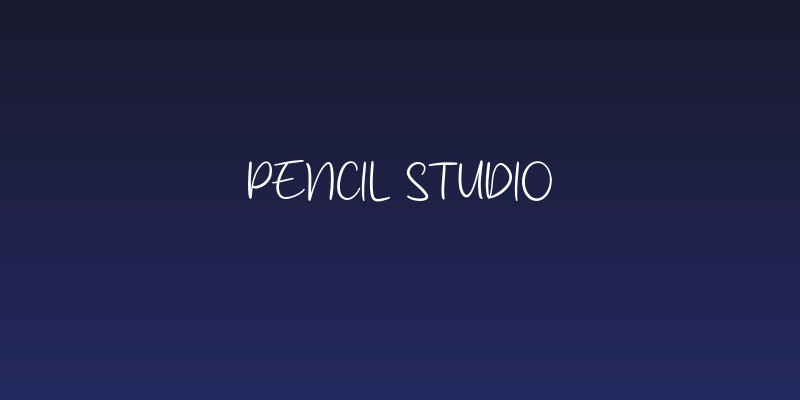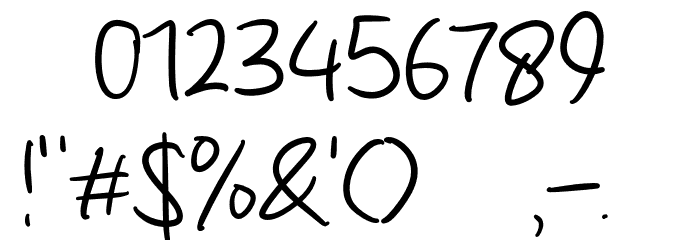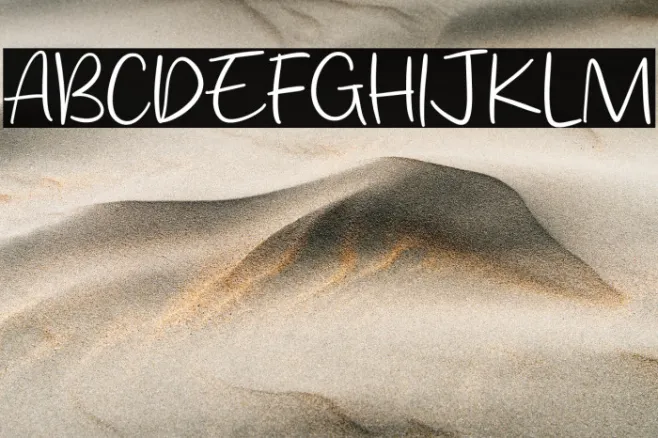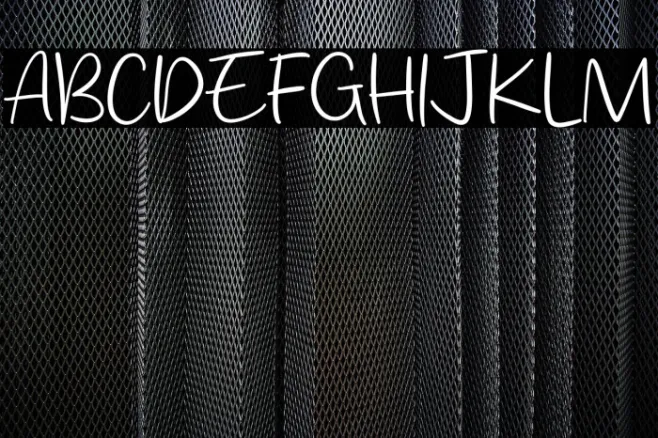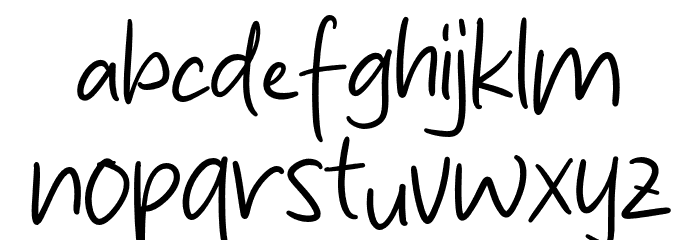
Pencil Studio Font
This font exudes a playful and casual handwritten style, characterized by its smooth, flowing lines and slightly irregular letterforms. The uppercase and lowercase letters maintain a consistent style, with a slight slant that adds to its informal charm. The numbers and special characters are crafted with the same whimsical touch, ensuring a cohesive look across all glyphs. The strokes are moderately thick, providing good readability while retaining a personal, hand-drawn feel. This font is perfect for projects that require a friendly and approachable aesthetic.
| Use Case | Logos, Headlines, Informal text |
| Proposed Projects | Ideal for greeting cards, children's books, personal blogs, and creative branding. |